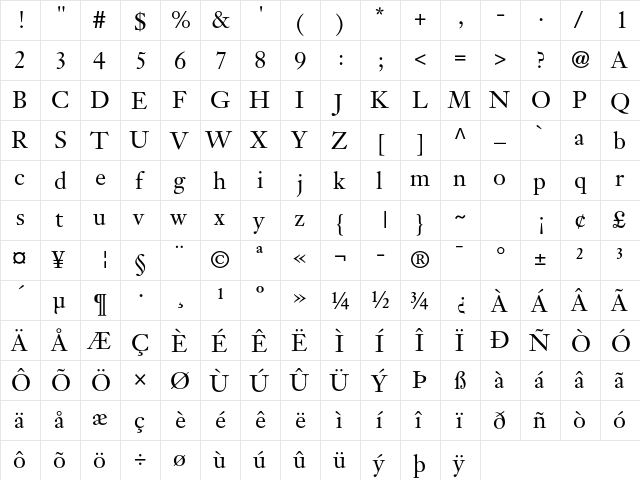
Janson Text LT Std 55 Roman
| Designer | Nicholas Kis |
Design Context for Janson Text LT Std Typeface
Janson Text LT Std is a composed and adaptable typeface that performs quietly and consistently across a wide range of design contexts. The delicate stroke weight brings airiness and refinement to layouts.